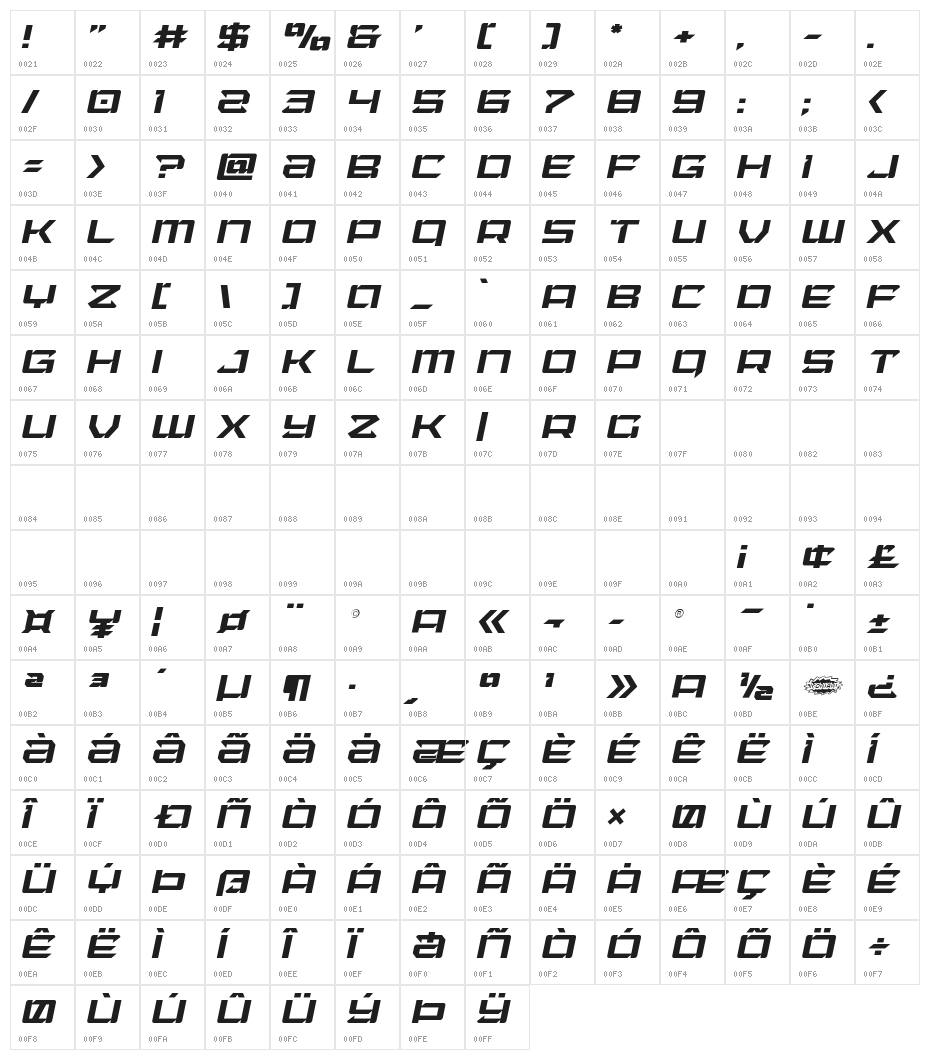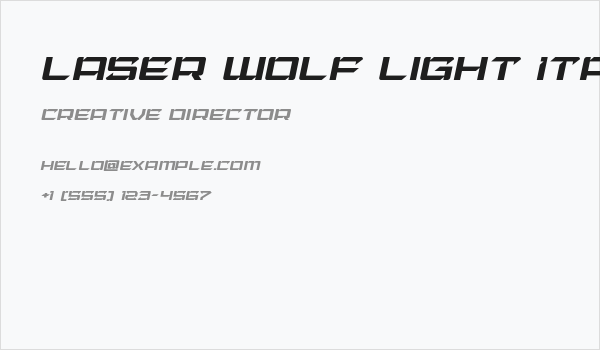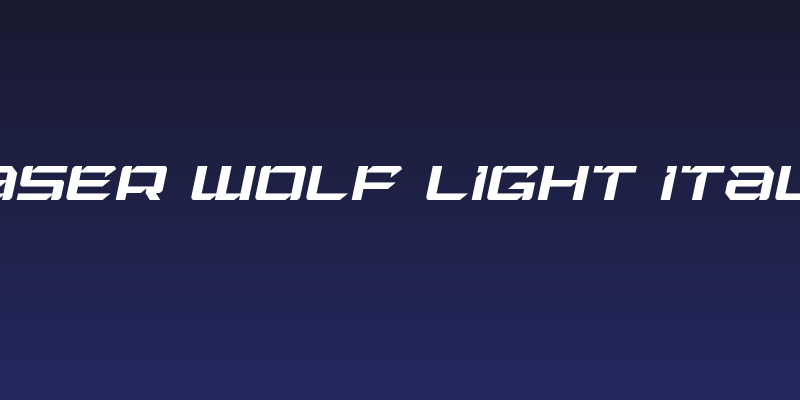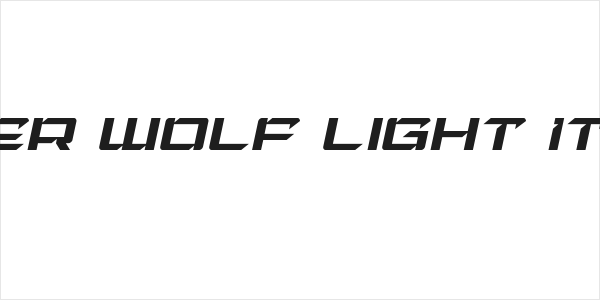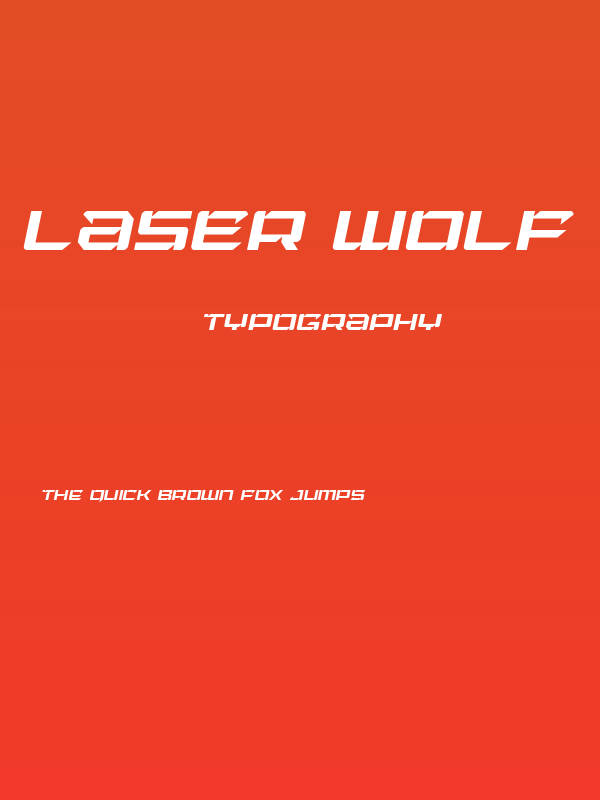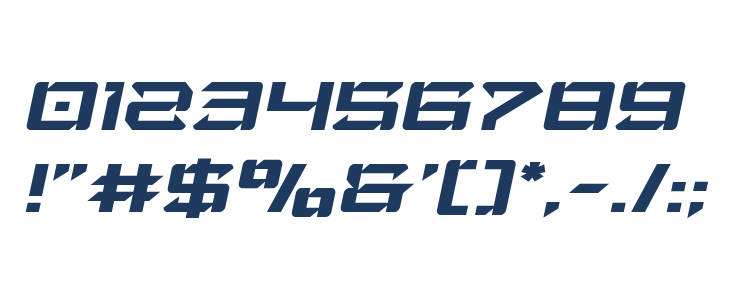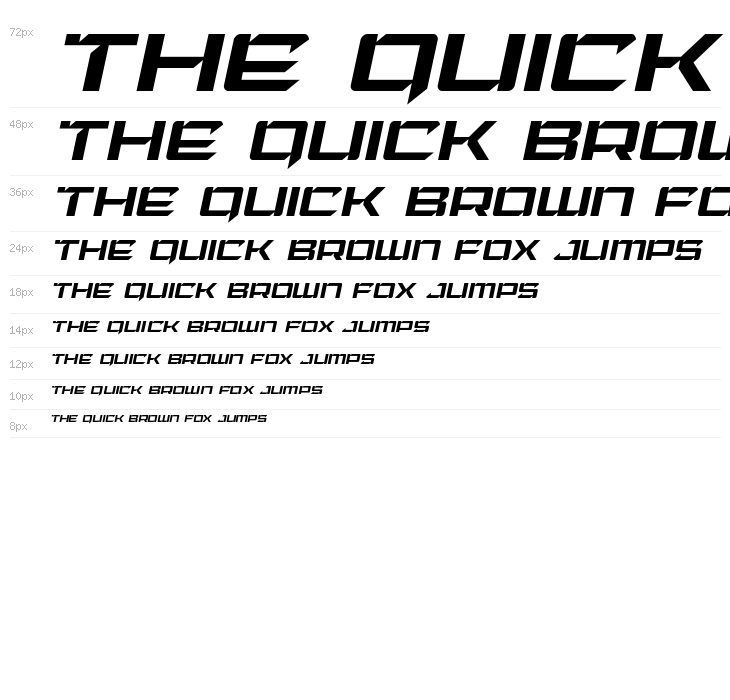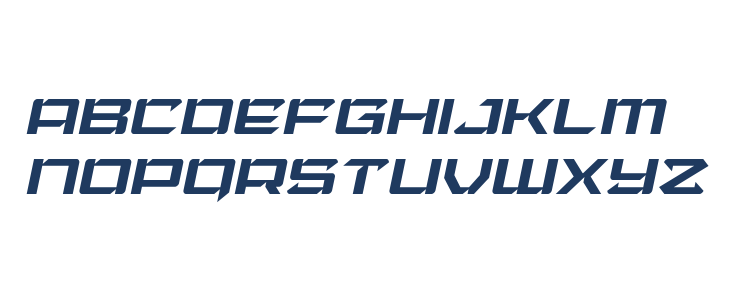
Laser Wolf Light Italic Font
Laser Wolf Light Italic Description
This font features a futuristic and angular design, characterized by sharp edges and a sleek, italicized form. The letters are uniformly slanted, giving a sense of motion and speed. The uppercase and lowercase letters maintain a consistent style, with distinct geometric shapes that create a modern and dynamic appearance. The numerals and special characters follow the same design principles, ensuring a cohesive look across all elements. The font's unique style makes it stand out, suitable for projects that require a bold and contemporary aesthetic.
| Proposed Projects | Ideal for sci-fi themed projects, tech branding, video game titles, and modern advertising. |